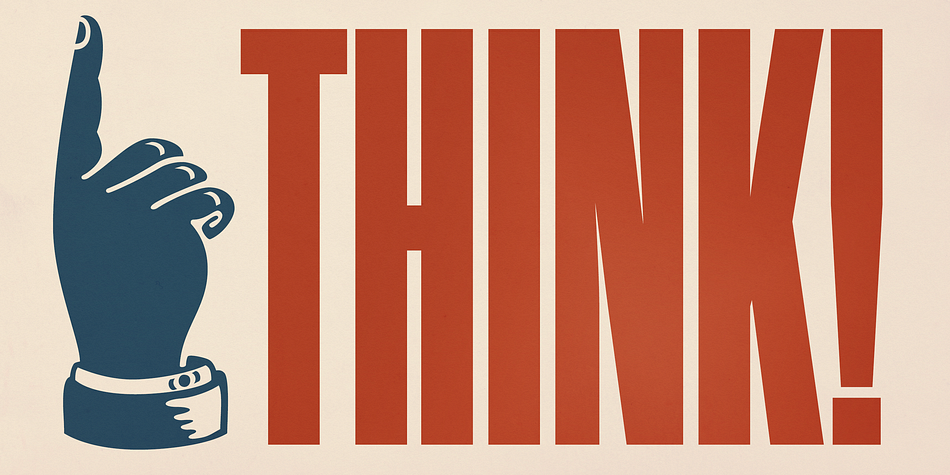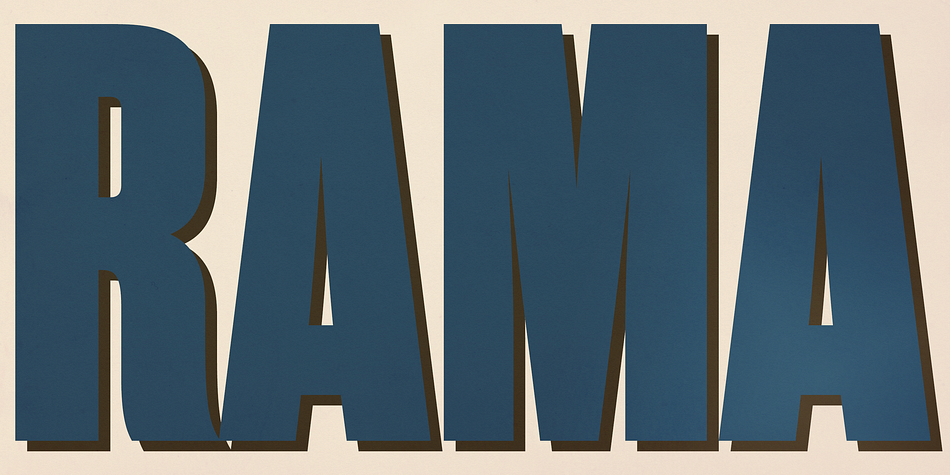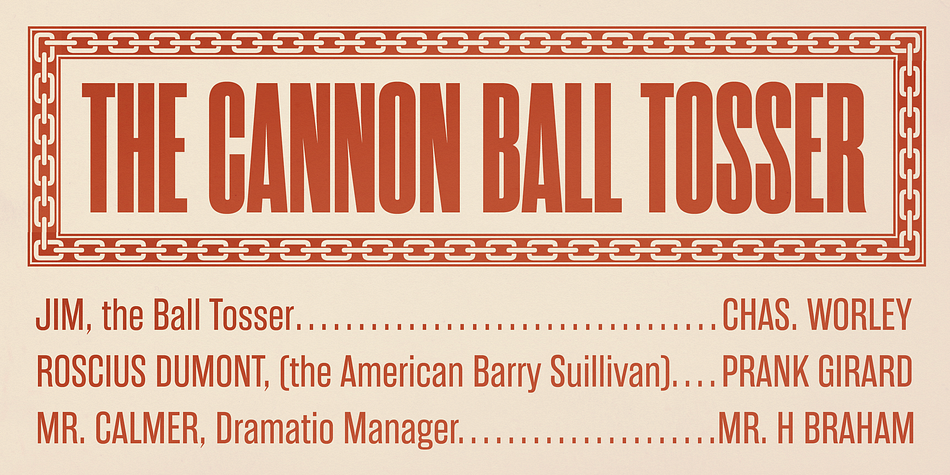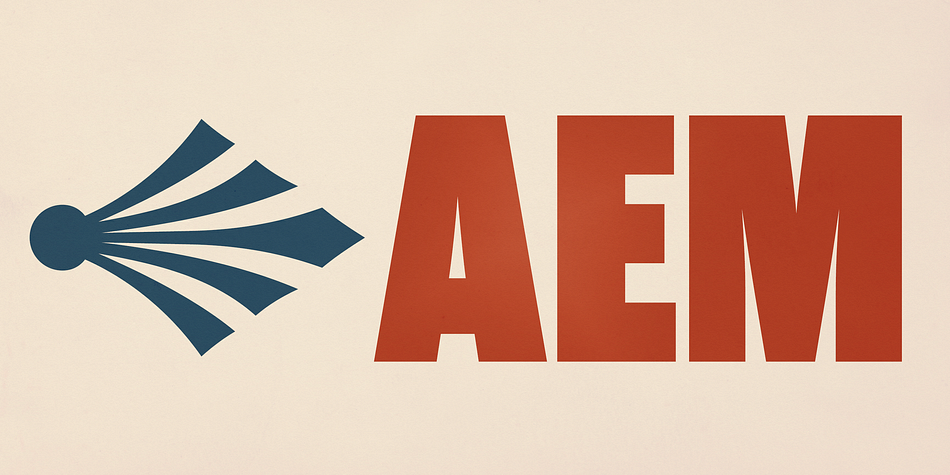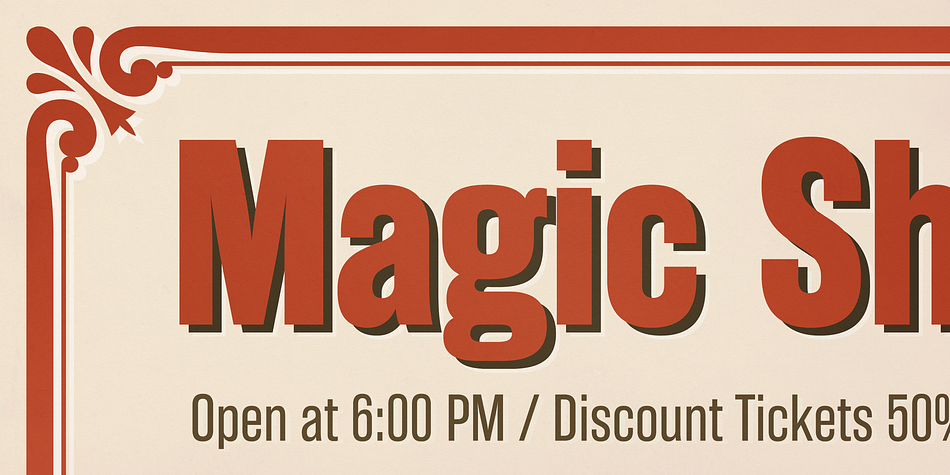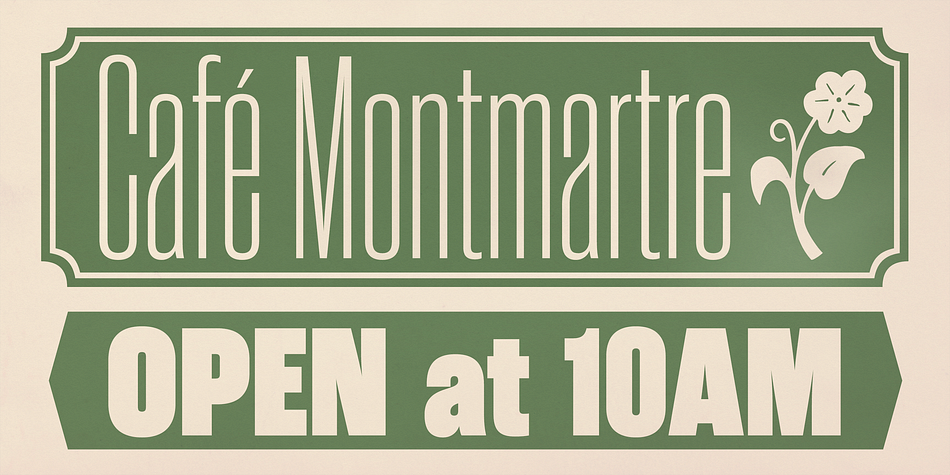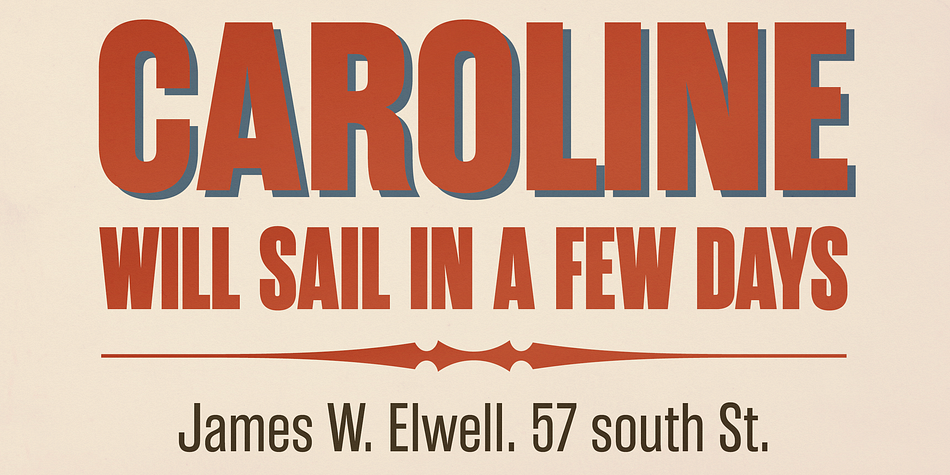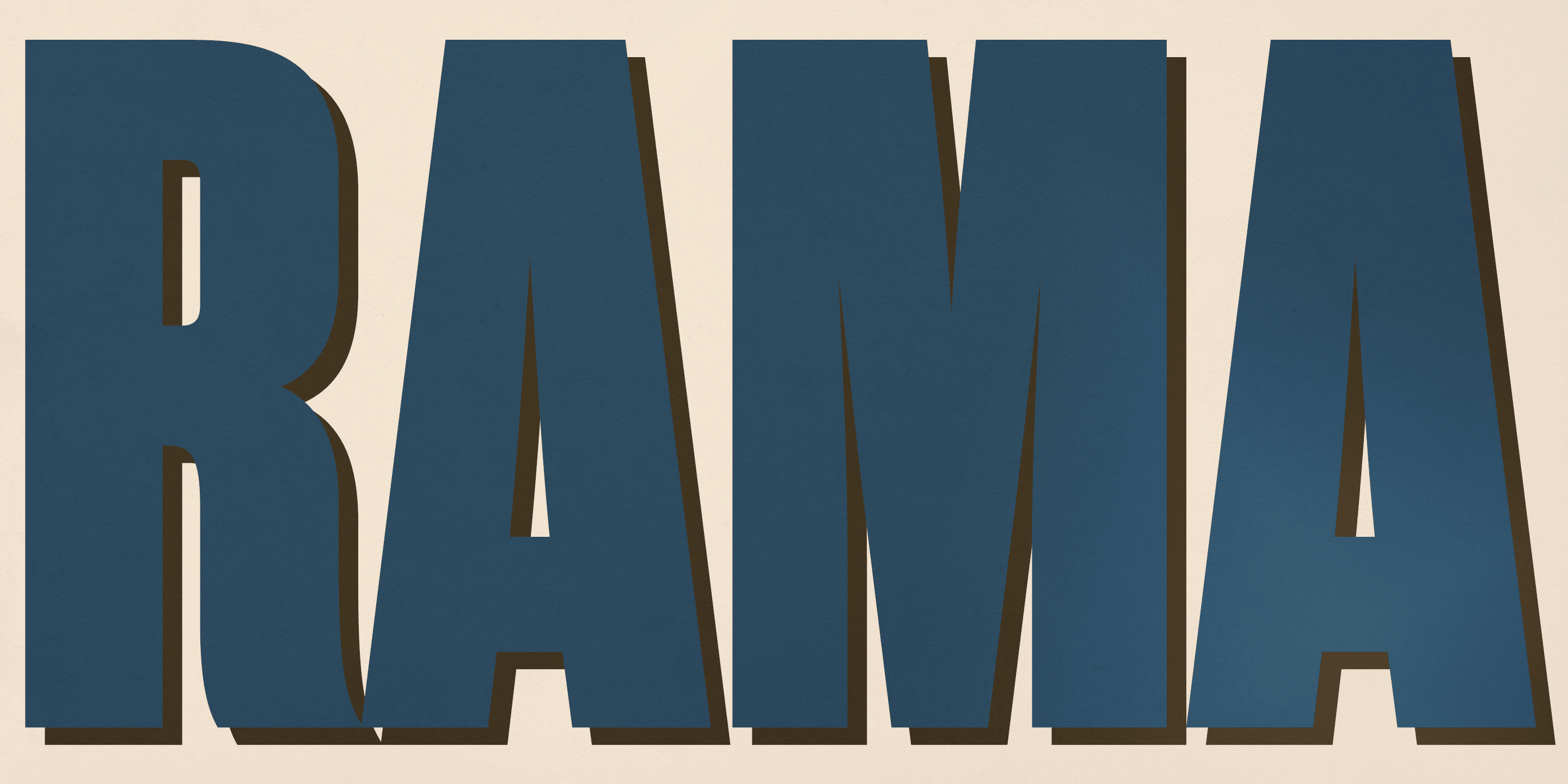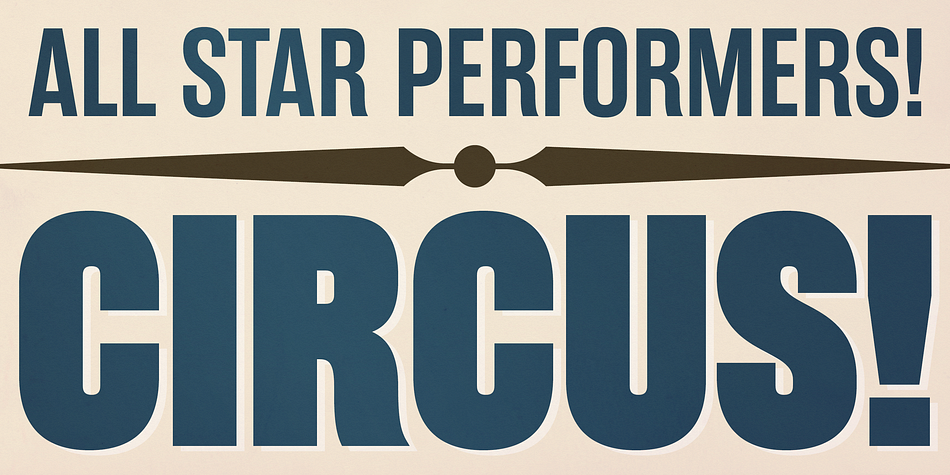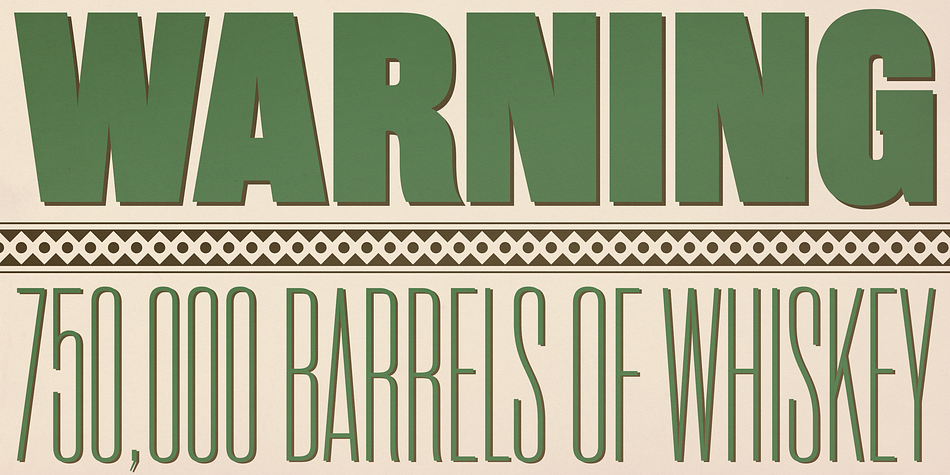
Rama Gothic is an antiqued sans serif designed inspired by 1800s-style wood type.
The all glyphs had been designed carefully to be retro-looking of the old time and to fill all with nostalgia.
This condensed font family with 18 styles will be the best solution for posters, titles and anywhere you need impact.
To complete your work perfectly, Gothic Extras family is ready for free. They include borders, ornaments and frames designed using vintage catalog of Hamilton in 1800s as a model.
Incidentally, -r- has its alternative glyph that can be used with OpenType salt feature.